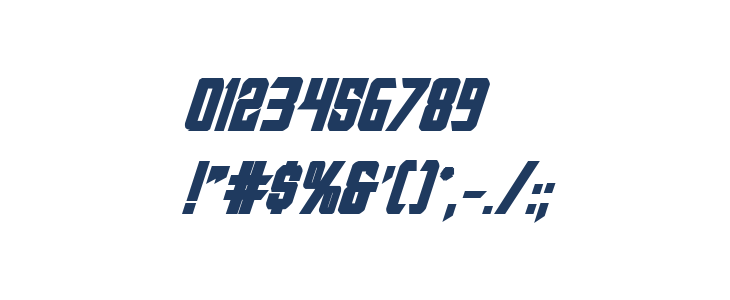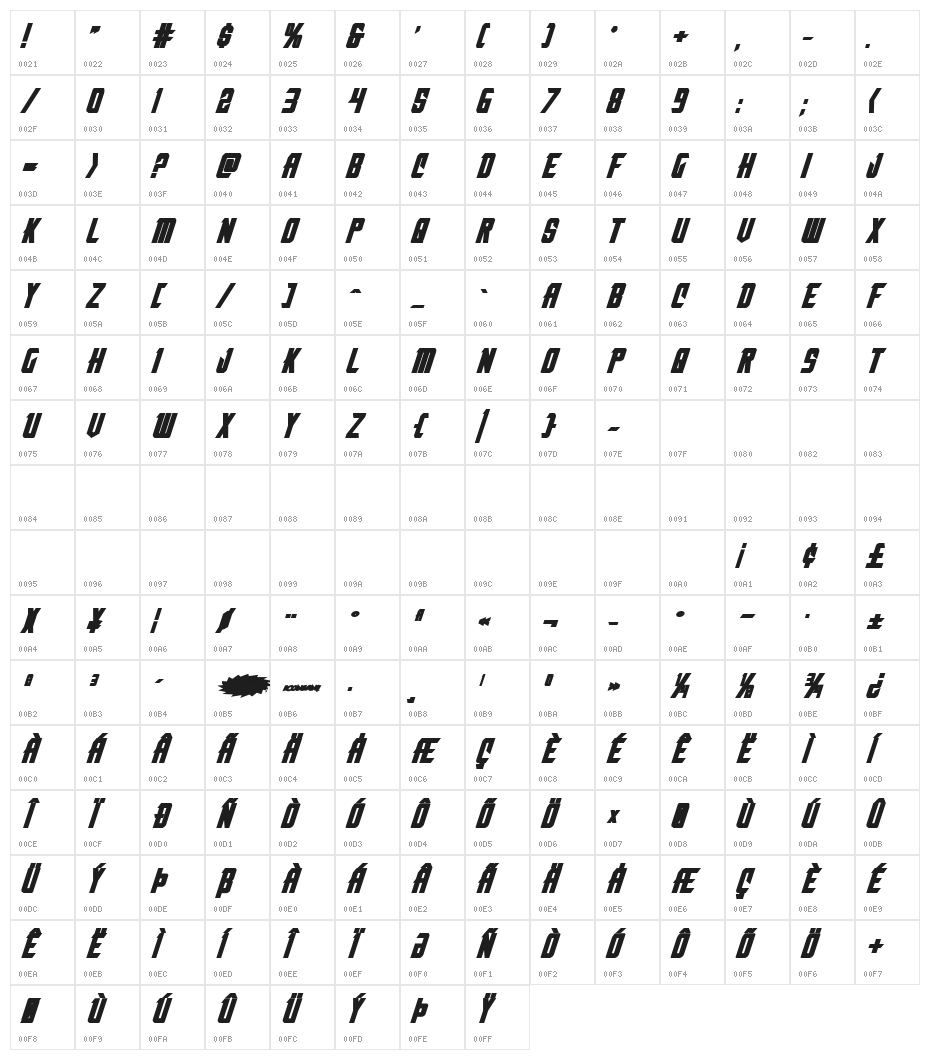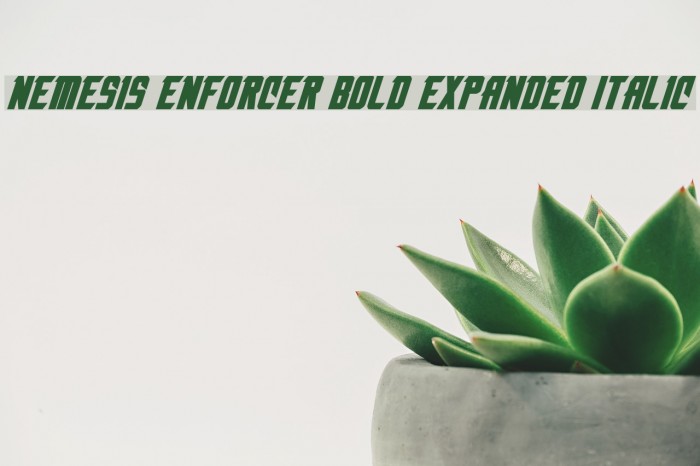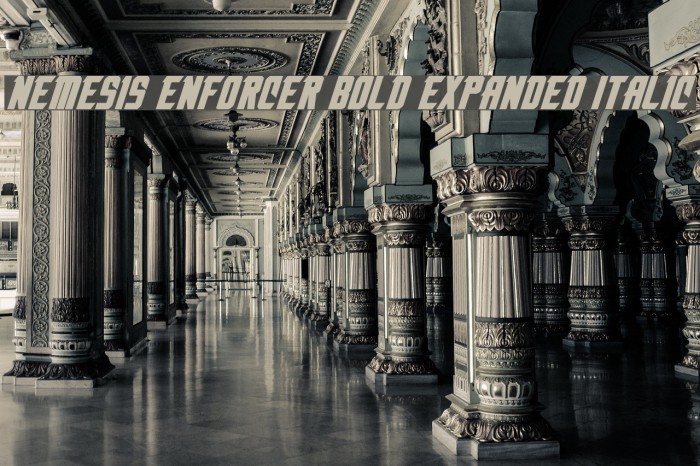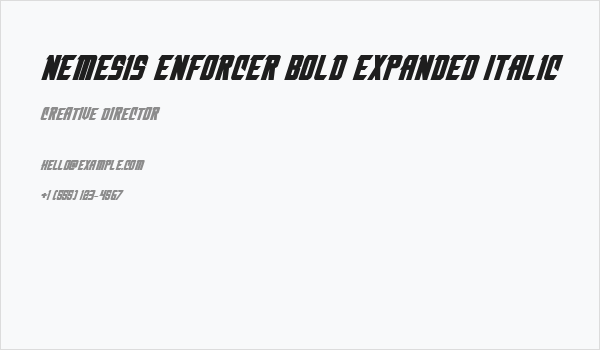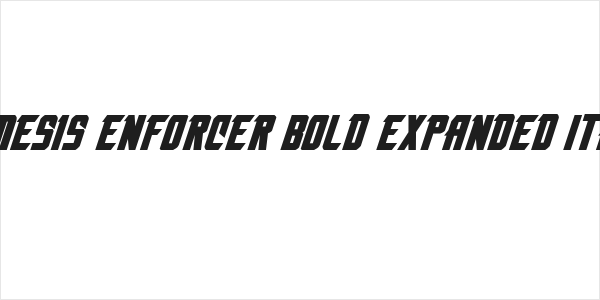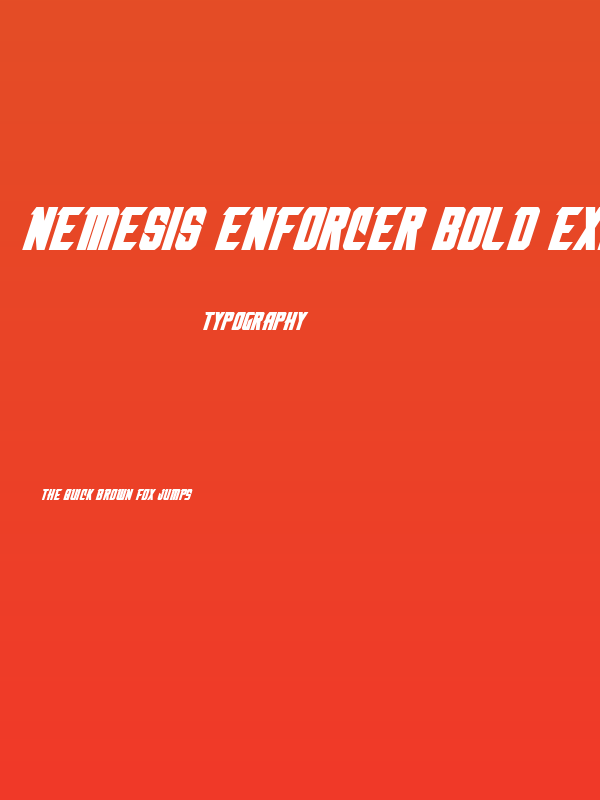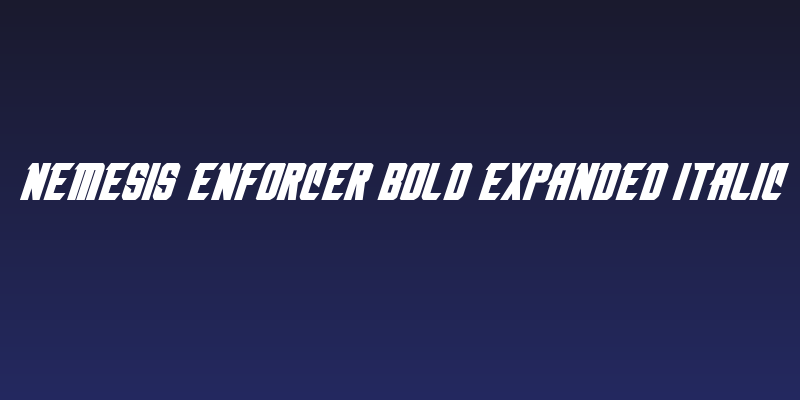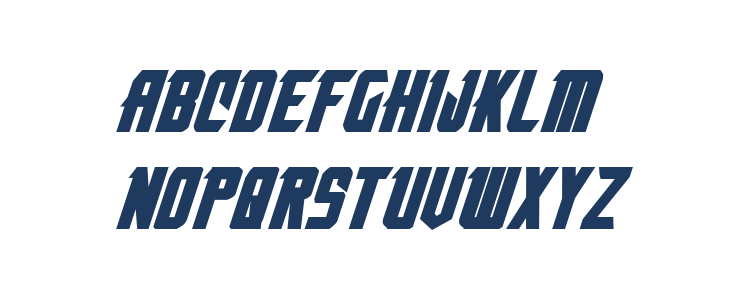
Nemesis Enforcer Bold Expanded Italic Font
Nemesis Enforcer Bold Expanded Italic Description
This font features a bold and expanded style with a distinct italic slant, giving it a dynamic and powerful appearance. The characters are angular and sharp, with a futuristic and aggressive feel. The uppercase letters are particularly striking, with a strong presence that commands attention. The numbers and special characters maintain the same bold and angular design, ensuring consistency across all elements. This font is ideal for projects that require a strong, impactful visual statement.
| Proposed Projects | Perfect for sports branding, video game titles, action movie posters, and any project needing a bold, futuristic look. |